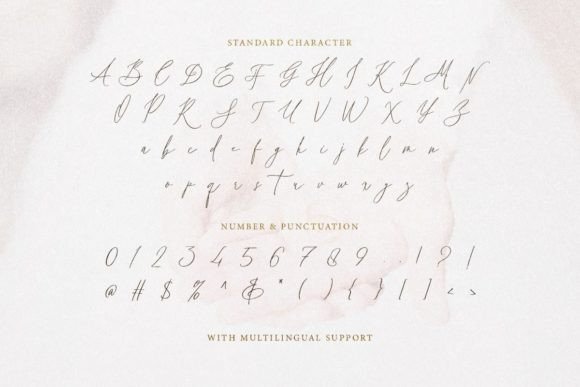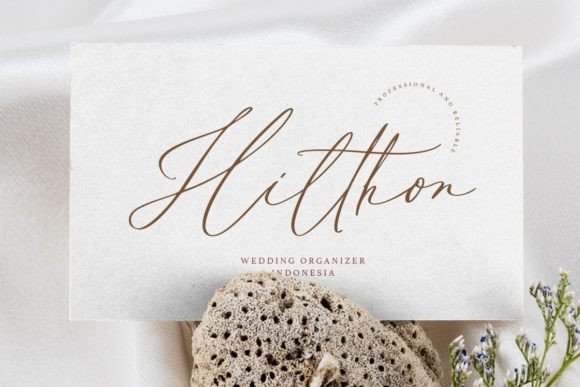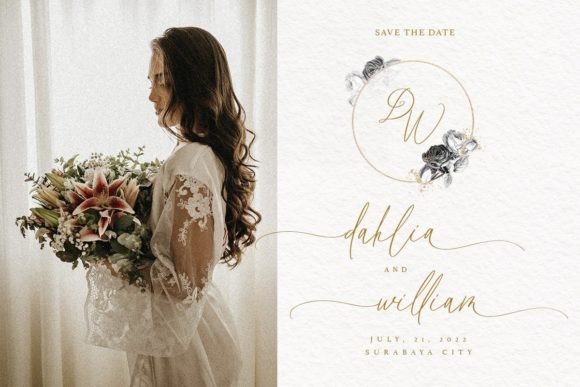
Introduction to Marilla Spring Font
Marilla Spring is a beautiful and modern script font.
You can use this font to make a feminine logo branding, suitable for wedding invitations or handwritten quotes Let this font make your design more lovely and classy.
Key Features of Marilla Spring Font
Marilla Spring Font offers exceptional quality and versatility, making it a valuable addition to your design toolkit. Whether you’re creating for personal projects or commercial use, Marilla Spring Font delivers professional results.